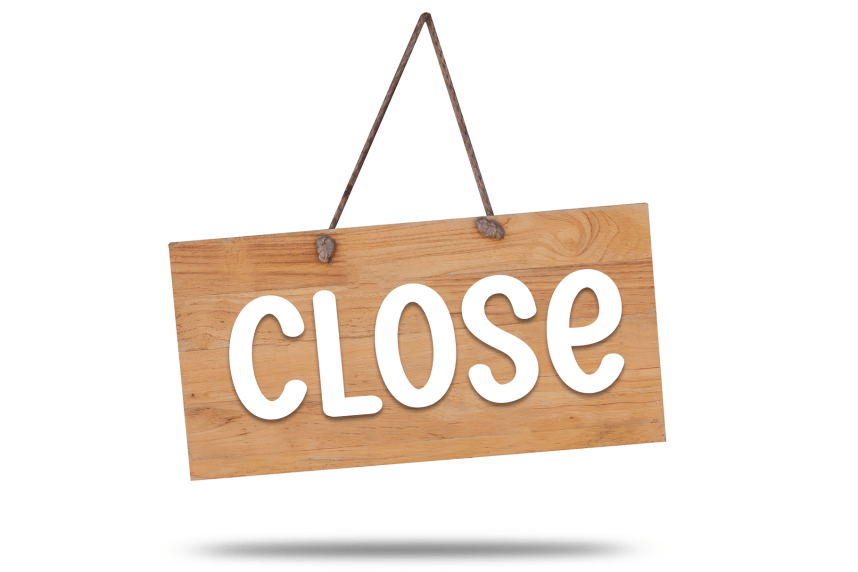
Birthday Candles – Playful Style Font
Birthday Candles – Playful Style Font, special creative products for you, our products will give you an extraordinary experience. the latest style letters are perfect for wall displays, wedding invitations, social media post logos, advertisements, product packaging, product designs, labels, photography, watermarks, invitations, stationery, and any project that requires taste handwriting.